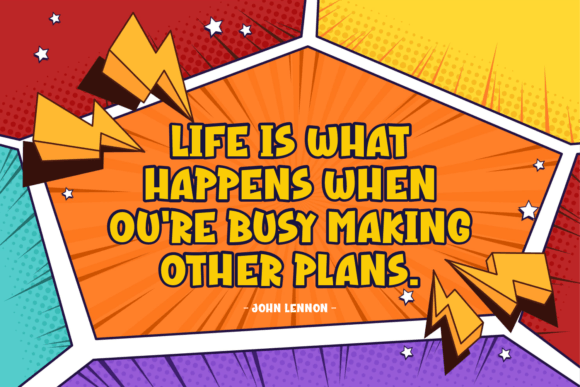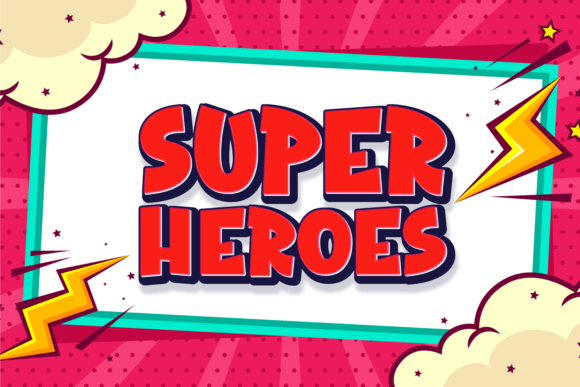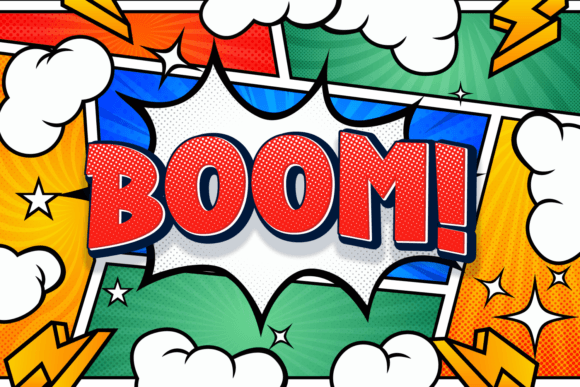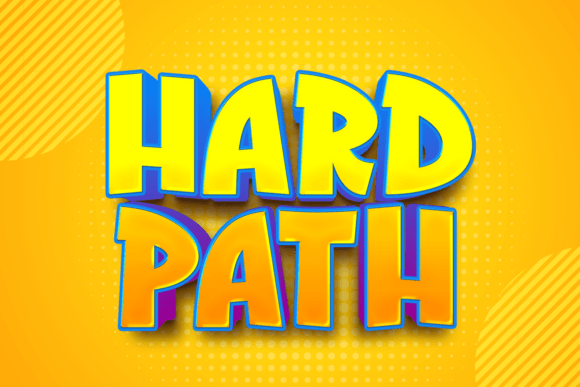
Introducing Hard Path Font: The Ultimate Display Font for Playful Typography
Are you looking for a font that can add a touch of playfulness and excitement to your designs? Look no further than Hard Path Font, a thick and playful display font that’s perfect for creating beautiful cartoon-style typography. With its striking appearance, Hard Path Font can elevate any creation, from posters and book covers to t-shirts and cards.
What is Hard Path Font?
Hard Path Font is a display font designed to make a statement. Its thick and bold lines give it a sturdy, confident look that’s perfect for headlines, titles, and other attention-grabbing text. But what really sets Hard Path Font apart is its playful personality. The font’s rounded edges and slightly irregular shapes give it a friendly, approachable feel that’s perfect for designs that need a bit of whimsy.
What Makes Hard Path Font So Versatile?
One of the best things about Hard Path Font is its versatility. This font can be used on a wide range of projects, from print materials like posters, flyers, and brochures to digital projects like social media graphics and website headers. It’s also perfect for crafters who want to add a personal touch to their work, whether it’s on t-shirts, mugs, or other DIY projects.
How to Use Hard Path Font in Your Designs
Using Hard Path Font in your designs is easy. Here are a few ideas to get you started:
• Posters: Use Hard Path Font as a headline font to grab attention and draw people in. You can also use it for body text to create a fun and playful vibe.
• Book Covers: Add a touch of personality to your book covers with Hard Path Font. It’s perfect for fiction novels, children’s books, and other titles that need a bit of whimsy.
• T-Shirts: Create custom t-shirts with Hard Path Font that’s sure to turn heads. You can use it on its own or pair it with other fonts for a unique look.
• Cards: Add a personal touch to your greeting cards, invitations, and other paper crafts with Hard Path Font.
Benefits of Using Hard Path Font
So why should you choose Hard Path Font for your designs? Here are just a few benefits:
• Unique Look: Hard Path Font has a unique look that’s sure to stand out in a crowd. Its playful personality and bold lines make it perfect for designs that need a bit of excitement.
• Easy to Read: Despite its bold lines, Hard Path Font is easy to read, even at smaller sizes. This makes it perfect for body text as well as headlines.
• Versatile: As mentioned earlier, Hard Path Font is incredibly versatile. You can use it on a wide range of projects, from print materials to digital projects.
Tips for Getting the Most Out of Hard Path Font
Here are a few tips for getting the most out of Hard Path Font:
• Experiment with Colors: Hard Path Font looks great in a wide range of colors, from bright and bold to more muted and subtle. Experiment with different colors to find the perfect look for your design.
• Pair it with Other Fonts: Hard Path Font pairs well with a wide range of other fonts, from serif fonts like Times New Roman to sans-serif fonts like Arial. Experiment with different pairings to find the perfect look for your design.
• Use it for Headlines and Titles: Hard Path Font is perfect for headlines and titles, but you can also use it for body text to create a fun and playful vibe.
Hard Path Font is a thick and playful display font that’s perfect for creating beautiful cartoon-style typography. With its striking appearance and versatile personality, it’s perfect for a wide range of projects, from posters and book covers to t-shirts and cards. Whether you’re a designer or a crafter, Hard Path Font is sure to become a favorite in your collection.